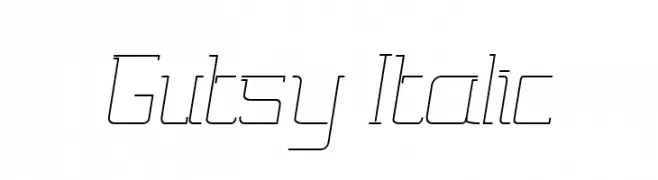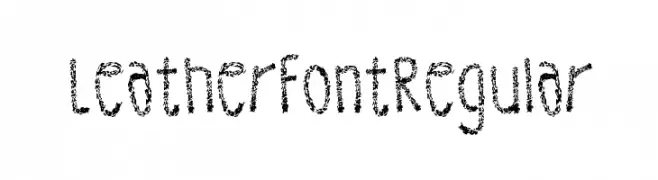
Hand-drawn decorative font with cartoon characters and doodles.
A playful, sketchy font with a hand-drawn, doodle-like style.
A playful, decorative font with intricate patterns and doodles.
A distressed, slab serif font with a rugged, worn appearance.
A playful, hand-drawn font with letters in doodled squares and pencil accents.
A playful, camping-themed decorative font with bold, whimsical characters.
A set of bold, clear pictographic symbols for outdoor activities.
A textured, distressed font with a rugged, leather-like appearance.
A modern, geometric font with a linear, technical design.
A modern, geometric italic font with clean lines and a technical feel.